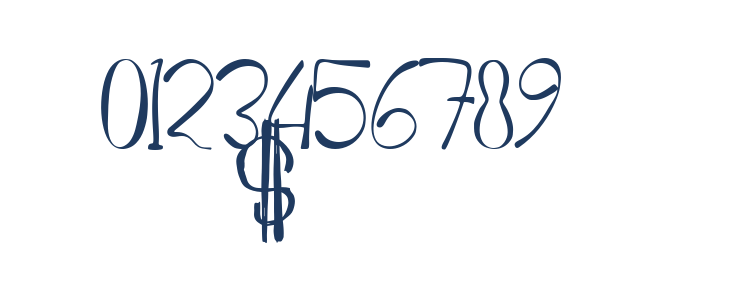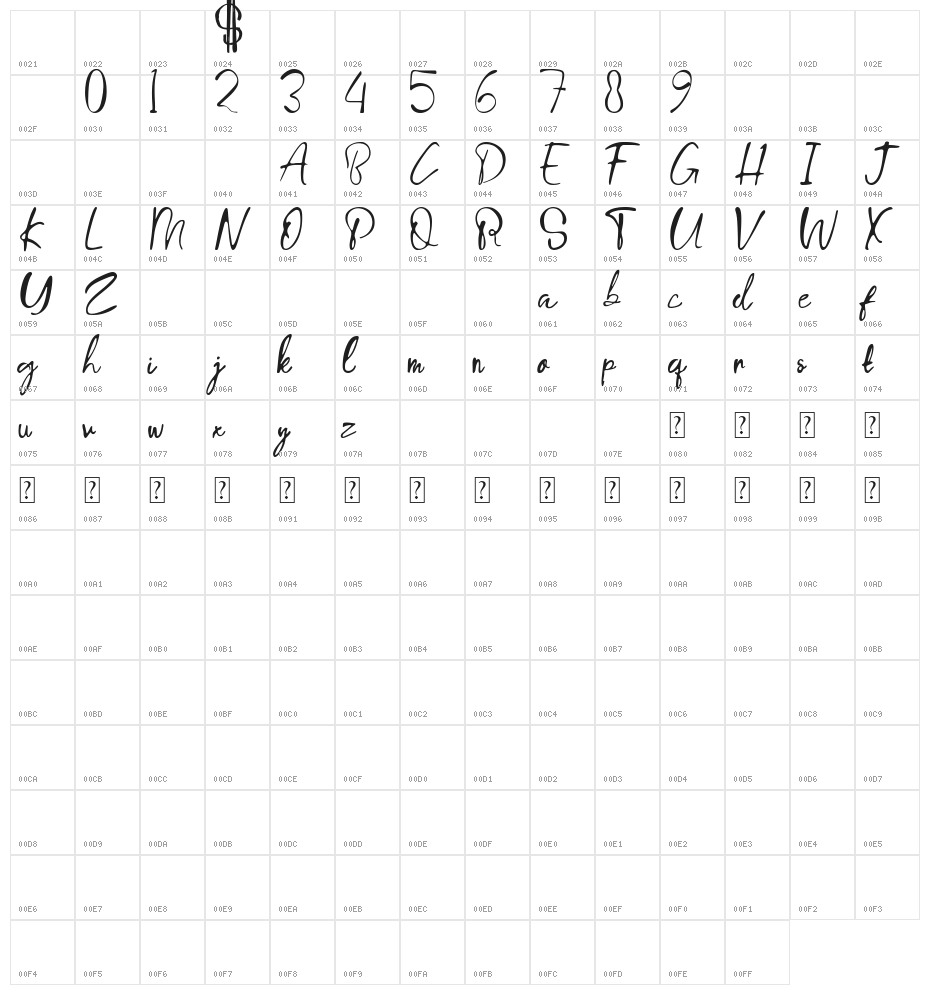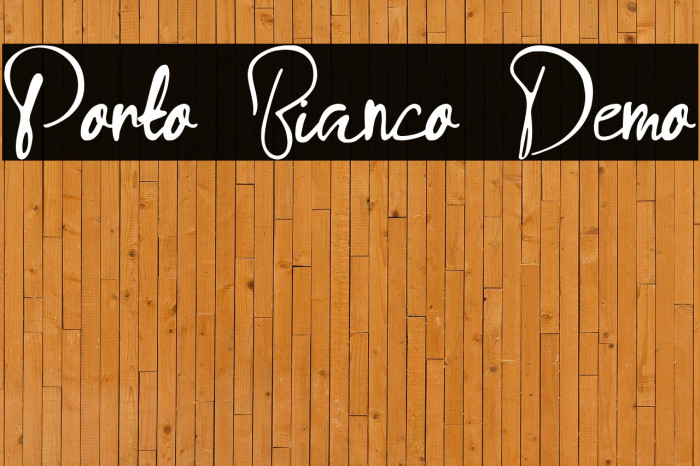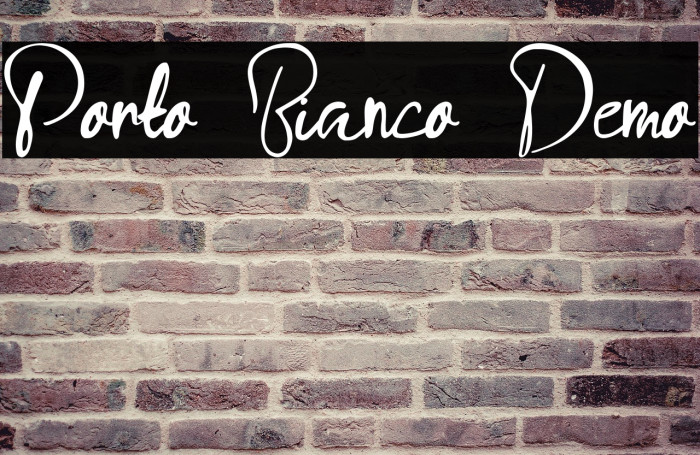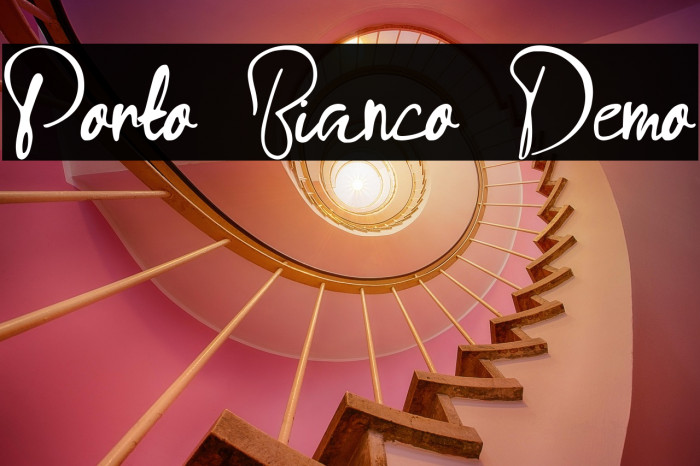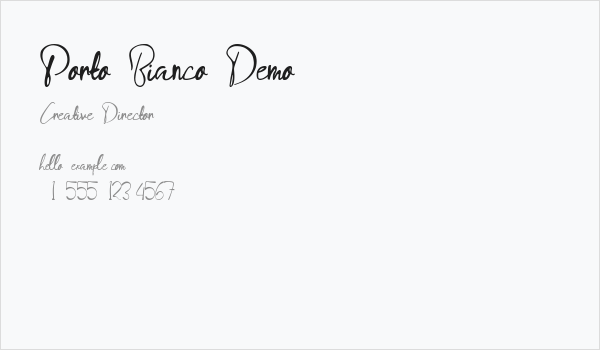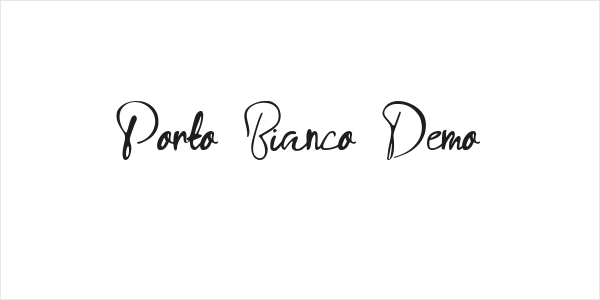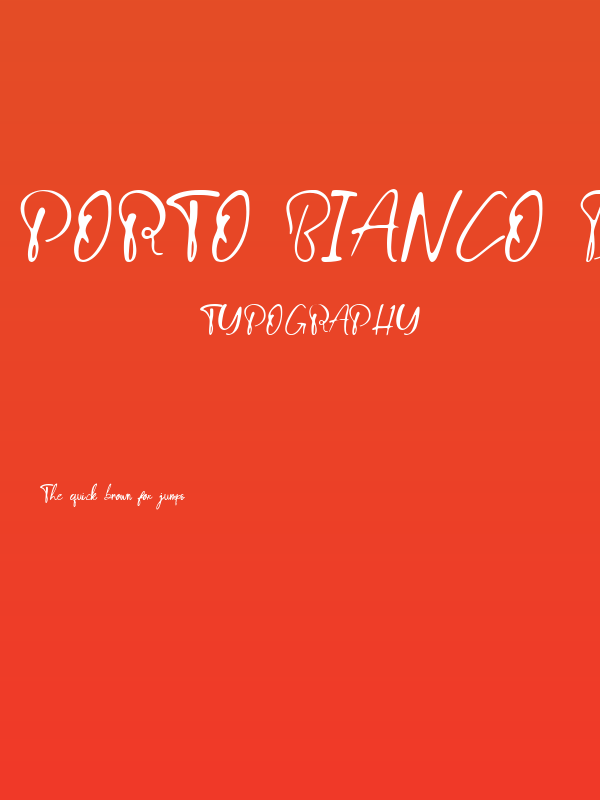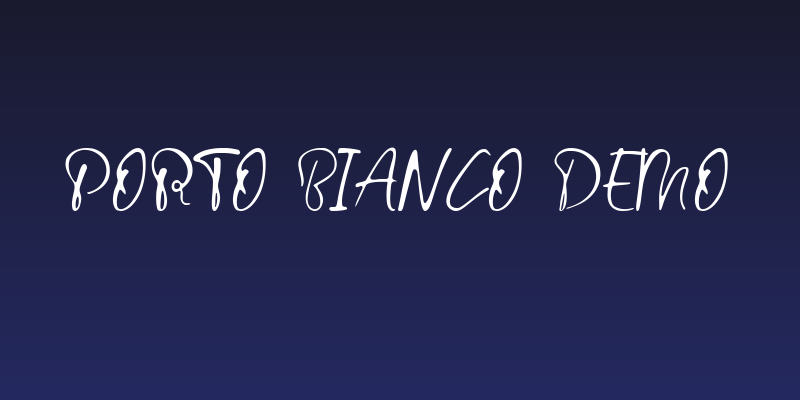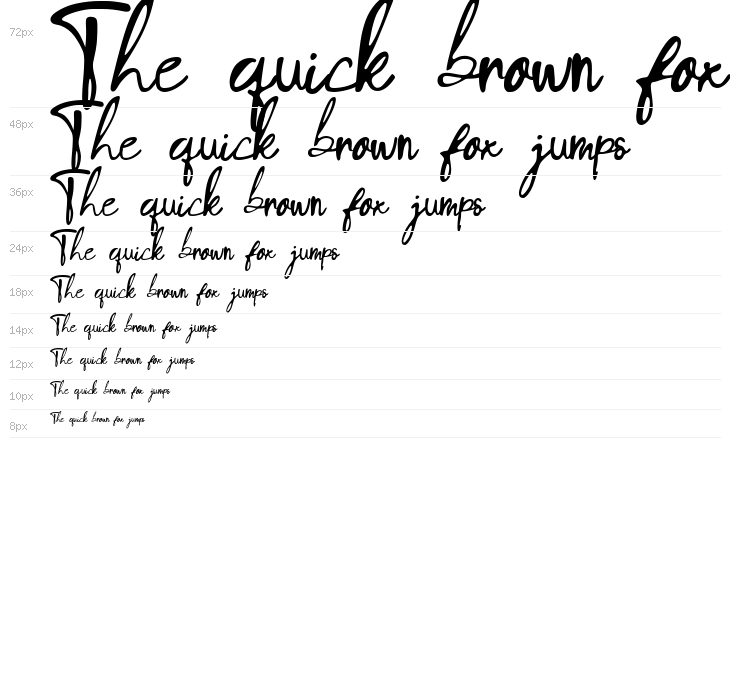
Porto Bianco Demo Font
Porto Bianco Demo Description
This font features a dynamic and flowing script style that exudes elegance and sophistication. The uppercase letters are tall and slightly slanted, with a playful yet refined appearance. The lowercase letters are more connected, creating a seamless cursive flow that enhances readability while maintaining an artistic flair. The numerals are distinct and bold, complementing the overall style with their unique curves. Special characters like the dollar sign and ampersand are designed with the same fluidity, adding to the font's cohesive look. This font is perfect for projects that require a touch of elegance and creativity.